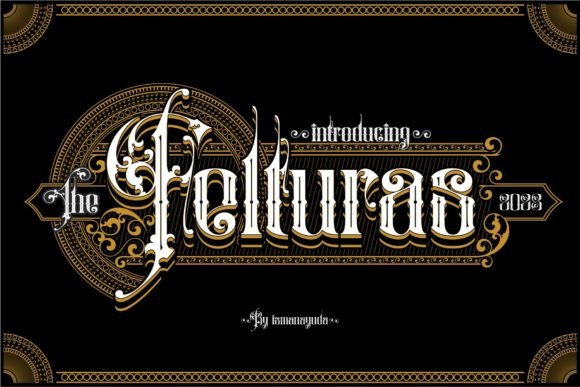
Introducing Felturas Font, the ultimate font for all your tattoo needs! With its captivating Victorian style, this unique font is guaranteed to elevate your designs and make them truly stand out. Created by the talented artist ismanayuda, Felturas Font is the perfect choice for those who want to make a bold statement.
Are you a tattoo artist looking for the perfect font to express your creativity? Look no further! Felturas Font is specifically designed to give your tattoos a touch of elegance and sophistication. Its blackletter style adds a timeless charm to your designs, making them truly one-of-a-kind. Let your clients be amazed by the intricate details and artistic flair of this remarkable font.
Not only is Felturas Font ideal for tattoos, but it also offers endless possibilities for other creative projects. Whether you're designing mock-ups for clothing brands or creating graphics for castle-style shops, this font will exceed your expectations. Its versatility knows no bounds, allowing you to unleash your imagination and bring your visions to life.
But what sets Felturas Font apart from other fonts on the market? It's the attention to detail and the emotional connection it creates with your audience. Every curve and every stroke has been carefully crafted to evoke a sense of passion and authenticity. Your designs will not only look visually stunning but will also resonate with your customers on a deeper level.
Imagine captivating your audience with a font that speaks volumes about your brand. Felturas Font is more than just a typeface; it's a storytelling tool that allows you to communicate your message effectively. Whether you're designing a logo, a poster, or a website, this font will help you leave a lasting impression and make your brand unforgettable.